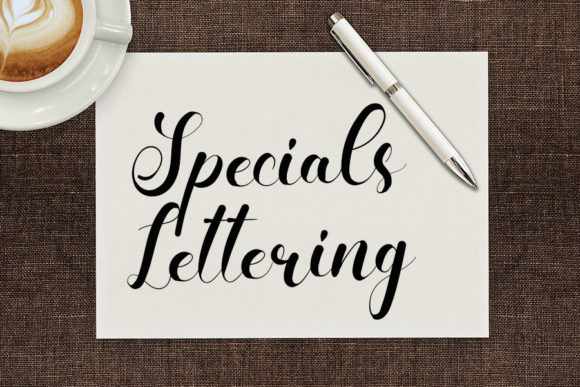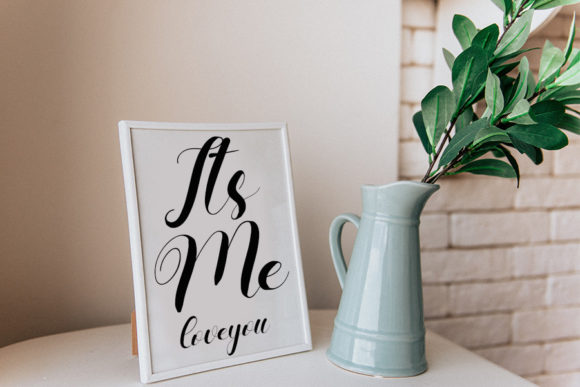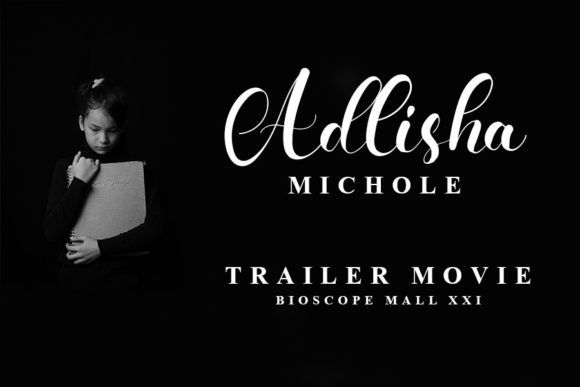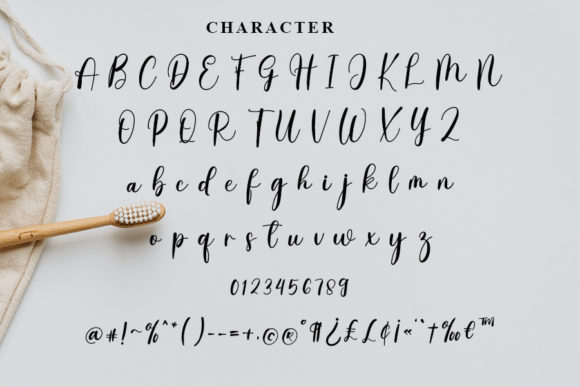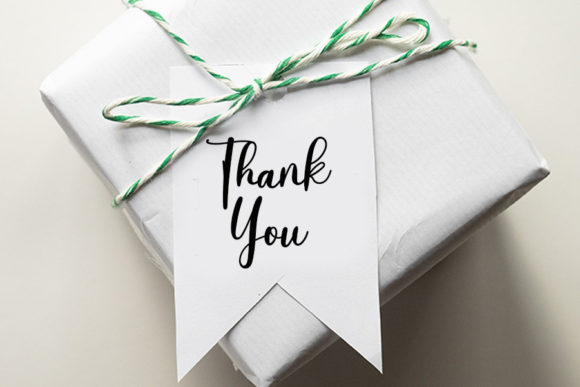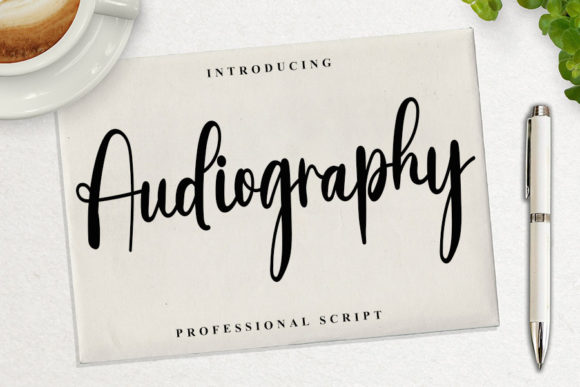
The Audiography Font: A Designer’s New Best Friend
I’ll never forget the time I was working on a project for a client who wanted a font that was “relaxed,” “casual,” and “whimsical.” I scoured the internet, tried out dozens of fonts, but nothing seemed quite right. That was until I stumbled upon the Audiography font. Its flowing, handwritten style immediately caught my eye, and I knew I had found the perfect fit. In this article, I’ll share my experience with Audiography, its features, and how to make the most of it in your designs.
So, what do I love about Audiography? Here are a few things:
- ✨ Unique and natural style: Audiography’s handwritten style is incredibly unique and natural-looking, making it perfect for a wide range of designs.
- ✅ Highly versatile: Whether you’re working on a logo, a poster, or a social media graphic, Audiography fits in seamlessly.
- 🎉 Easy to read: Despite its casual style, Audiography is surprisingly easy to read, even at smaller font sizes.
Of course, no font is perfect, and Audiography has a few quirks:
- 🤔 Limited formal use: While Audiography is amazing for casual designs, it may not be the best choice for more formal projects, like business reports or academic papers.
- ⚠️ Glyph limitations: While Audiography has a wide range of glyphs, it may not have every special character you need.
The Story Behind Audiography
Audiography was designed with the intention of creating a font that felt natural and effortless. The designer wanted to craft a font that would evoke a sense of relaxation and creativity, perfect for designers looking for a unique and versatile font. The result is a font that is both beautiful and functional.
| What type of projects is Audiography best suited for? | Audiography is perfect for creative projects, such as branding, posters, social media graphics, and more. |
| Does Audiography support OpenType features? | Yes, Audiography supports OpenType features, including stylistic alternates and glyphs. |
| Is Audiography easy to read? | Yes, despite its casual style, Audiography is surprisingly easy to read, even at smaller font sizes. |